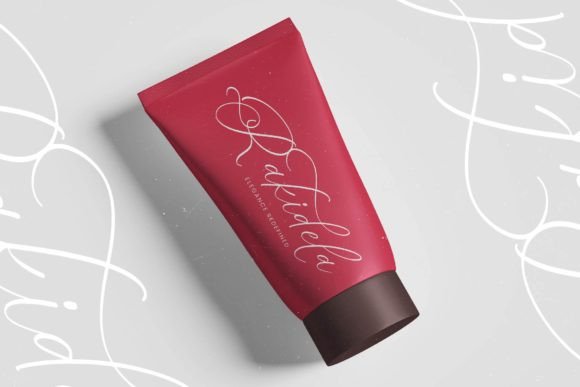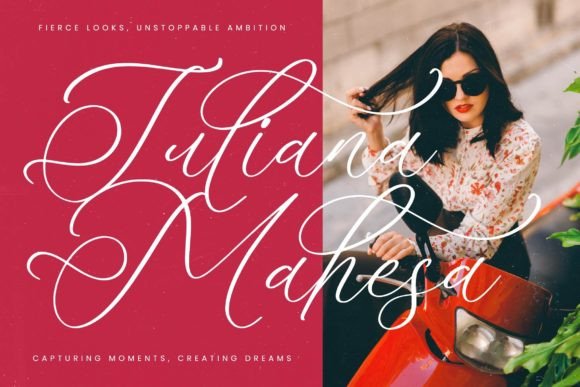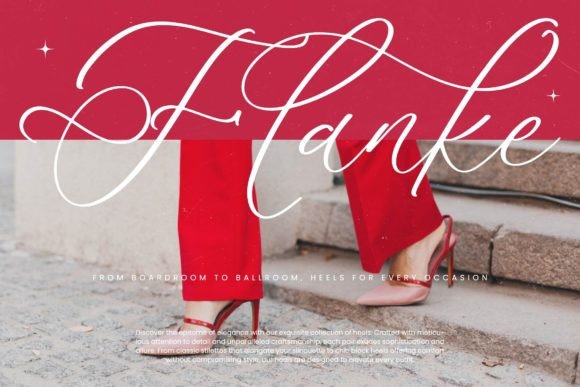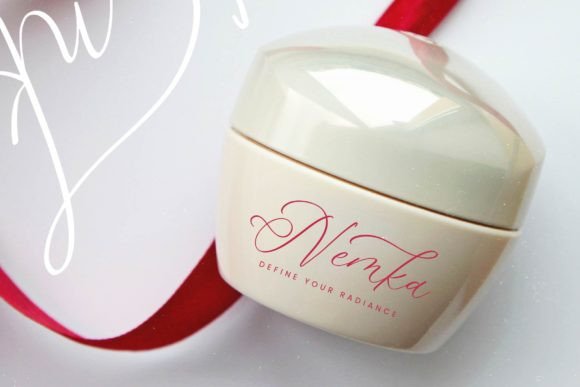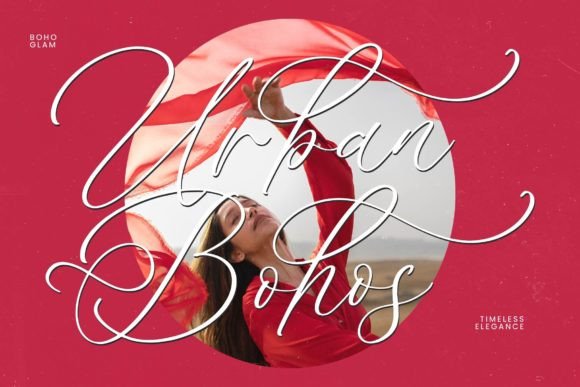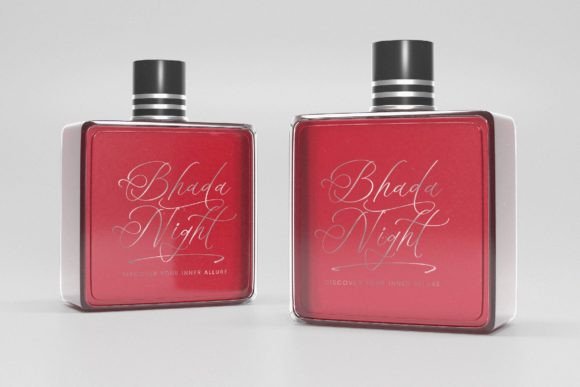
Unleashing the Art of Luxury Script: Discover Beladin Skintics Font
Have you ever found yourself staring at a blank canvas, searching for the perfect words to bring your creative vision to life? Maybe it’s a logo for a new business, a quote for a loved one, or a phrase to adorn a beautiful piece of home decor. Whatever the project, the right font can make all the difference.
Enter Beladin Skintics Font, a luxurious script font designed to elevate any design project. With its elegant, modern calligraphy style, this font is perfect for creating stunning logos, branding projects, and packaging designs that exude sophistication and style. For designers, Beladin Skintics Font offers a valuable addition to their toolkit, providing a unique and versatile solution for a wide range of creative applications.
Beladin Skintics Font Key Features
- Font Family: Beladin Skintics
- Font Size: Supports 6 font sizes, ranging from 8pt to 48pt
- Resolution: Designed for high-resolution displays, up to 300 DPI
- Unique Characteristics: Elegant, modern script with a touch of sophistication, suitable for fashion, beauty, and wellness industries
- Language Support: Supports over 100 languages, including Latin, Cyrillic, and Greek scripts
Beladin Skintics Font Review
Overall, I was really excited to dive into the Beladin Skintics Font, but my experience was a mixed bag. On the one hand, I found the following features to be quite appealing:
- ✨ Unique aesthetic: The font has a distinct, futuristic vibe that sets it apart from more common sans-serif fonts.
- ✨ High legibility: Even at small sizes, the font remains clear and easy to read.
- ✨ Customization options: Beladin Skintics offers a range of weights and styles, allowing for a high degree of flexibility.
However, there were some limitations that prevented me from fully embracing the font:
- ⚠️ Limited language support: I found that the font didn’t support certain languages, which could be a major issue for designers working on multilingual projects.
- ⚠️ Overly stylized: While the font’s unique aesthetic is a strength, it can also make it difficult to read in certain contexts.
- ⚠️ Not suitable for body text: I found that the font works best for headlines and titles, but becomes overwhelming when used for large blocks of body text.
Overall, I think the Beladin Skintics Font is a solid choice for designers looking for a unique, high-impact font for their projects. However, its limitations may make it less suitable for more complex or nuanced design applications.
The Beladin Skintics font is ideal for creating modern and minimalist designs. Some common use cases include:
- Business card and letterhead design
- Print design and publishing
Alternatives to Beladin Skintics Font
Beladin Skintics Font is a unique and stylish font, but sometimes designers may need alternatives for their projects. Here are a few options:
Great Vibes Font is a modern, elegant script font that is perfect for adding a touch of sophistication to designs. It’s ideal for use in wedding invitations, branding, and other high-end projects. Compared to Beladin Skintics Font, Great Vibes has a more refined and polished look, making it a great choice for designers who want to create a sense of luxury.
Alex Brush Font is a beautiful, handwritten font that is great for creating a personal and emotive feel in designs. It’s perfect for use in quotes, titles, and other text elements where a more expressive look is needed. Compared to Beladin Skintics Font, Alex Brush has a more whimsical and organic feel, making it a great choice for designers who want to add a touch of personality to their work.
Pacifico Font is a modern, sans-serif font that is perfect for use in a wide range of designs, from branding to advertising. It’s ideal for use in text elements where a clean and simple look is needed. Compared to Beladin Skintics Font, Pacifico has a more minimalist and straightforward look, making it a great choice for designers who want to create a sense of clarity and simplicity.